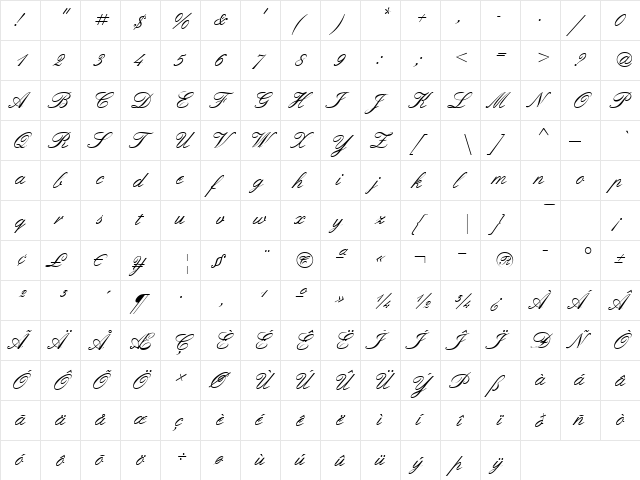
ElegantScript Normal Font Preview
ElegantScript Normal
Design Context for ElegantScript Typeface
ElegantScript brings a calligraphic fluidity to the page — its connecting strokes and expressive curves give it an unmistakably human quality.
Font Pairing: Combine ElegantScript with a simple geometric sans for maximum contrast — the tension between flowing curves and clean structure is a classic typographic pairing.
Pro Tip: Use ElegantScript for short runs of text — names, titles, or taglines. Extended body copy in script faces tires the eye quickly.